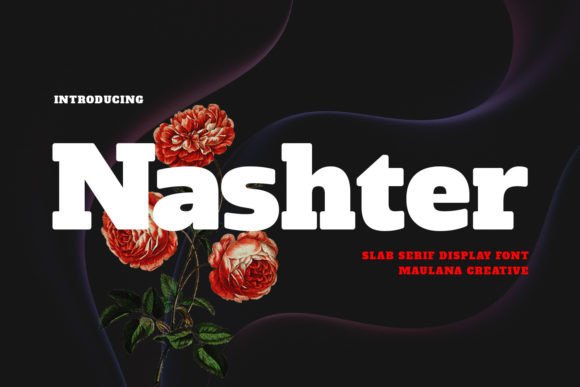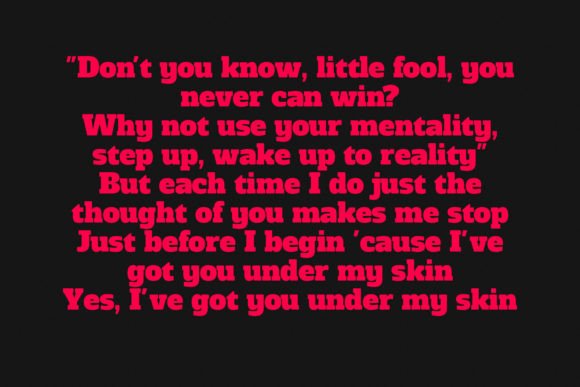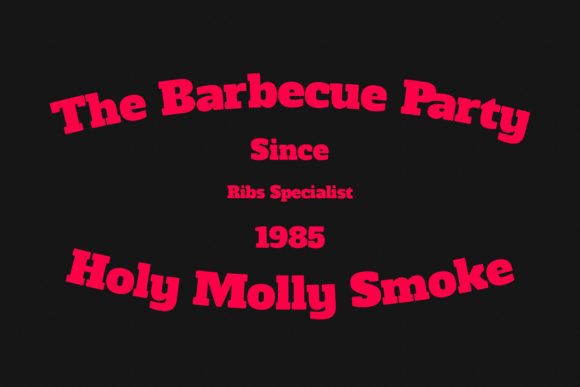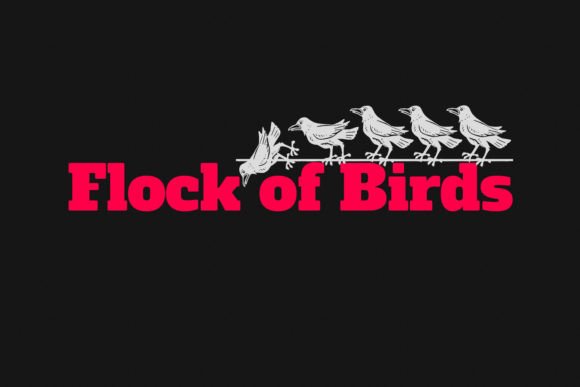
Nashter Font: Bold Slab Serif for Modern Logo Design & Headlines!
About the Nashter Font
The Nashter Font is here to transform your projects with its distinctive character and style. Nashter is a bold and trendy slab serif font that exudes confidence and modernity. With its strong, thick lines and angular serifs, it’s perfect for grabbing attention and making a statement. The font’s versatility allows it to work for both professional and creative projects, making it a go-to choice for designers looking for a strong and stylish typeface.
Nashter’s bold geometry makes it ideal for headlines, logos, and short impactful statements in branding materials and posters. Its strong presence commands attention, but its slab serifs prevent it from becoming overly aggressive. Avoid using it for extensive body text or UI elements; the weight and thickness will hinder readability in smaller sizes or longer passages.
Consider pairing Nashter with a clean sans-serif like Montserrat for a balanced contrast, or a more delicate script font like Great Vibes for a touch of elegance, depending on the desired mood. A geometric sans-serif would maintain the modern feeling while offering readability.
The overall personality of Nashter is confident and modern, projecting strength and authority. It’s a suitable choice for brands focused on technology, finance, or architecture, where a bold yet sophisticated aesthetic is valued.
Nashter Font Usage Examples
Nashter Font Example